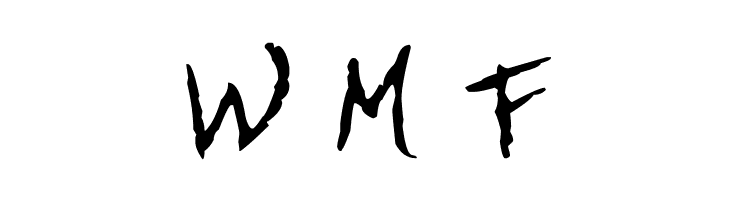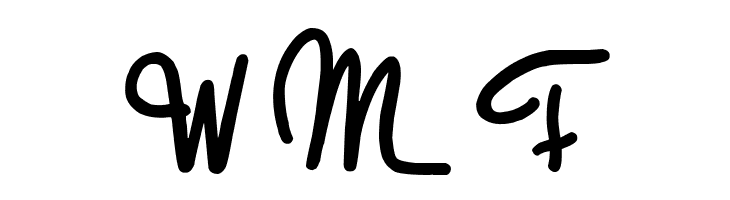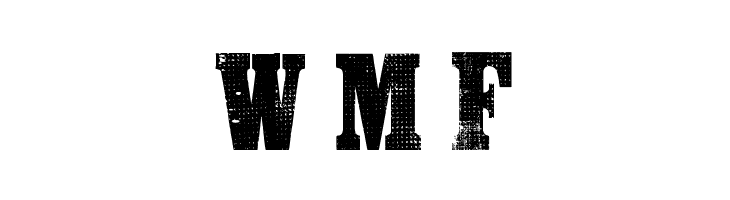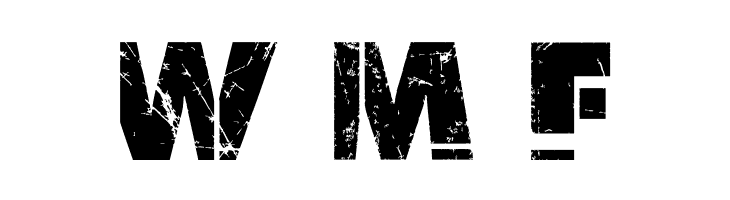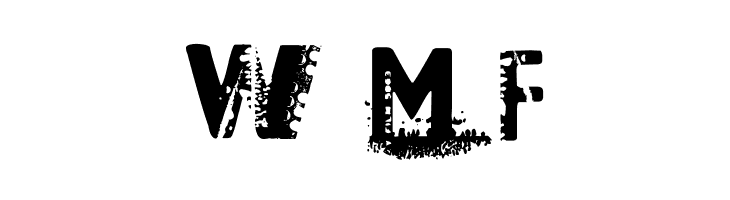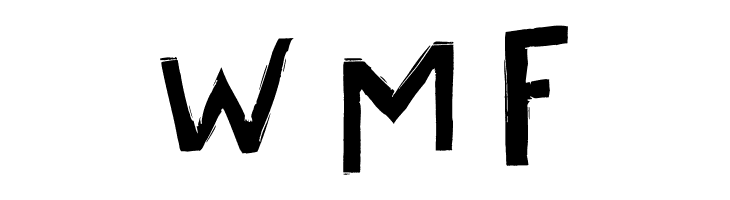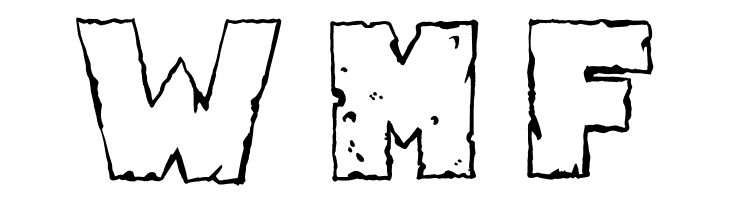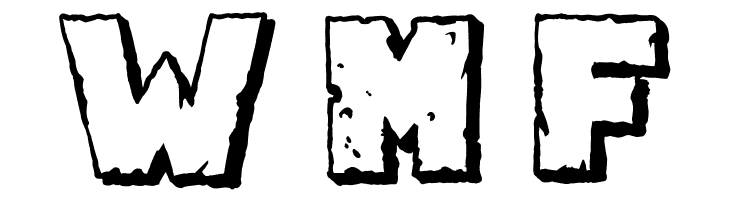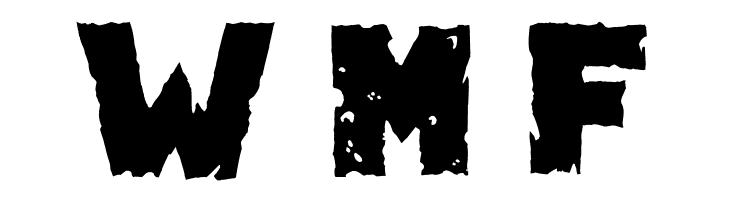
A dynamic, expressive handwritten font with irregular, spontaneous strokes.
A playful, handwritten font with bold, flowing characters.
A bold, distressed font with a gritty, textured appearance.
A bold, distressed font with a gritty, urban style.
A bold, distressed font with a grunge, film strip aesthetic.
A bold, brush-like font with a dynamic and edgy appearance.
A bold, hand-drawn font with a sketch-like, edgy appearance.
A rugged, cracked font with a bold, industrial style.
A bold, distressed font with a cracked, shadowed appearance.
A bold, distressed font with a cracked, rugged appearance.